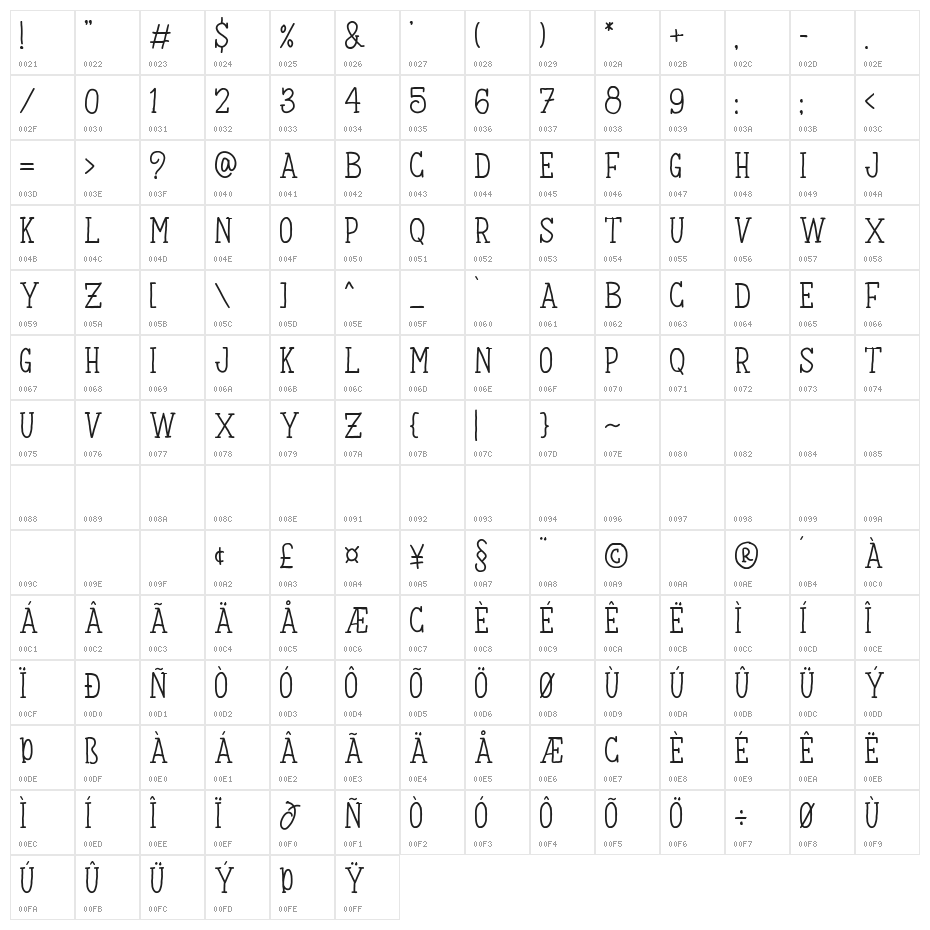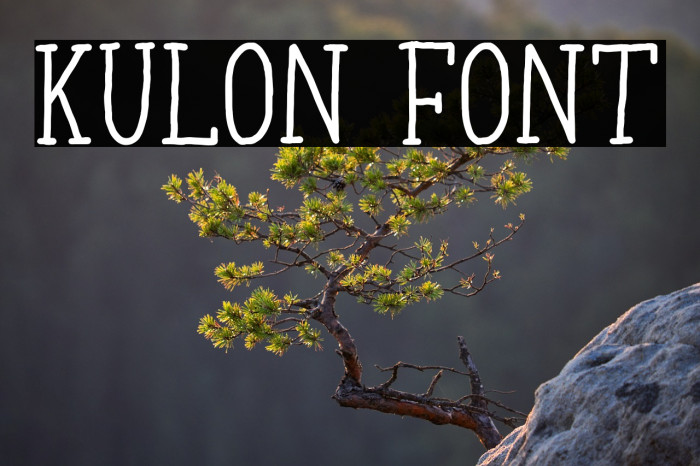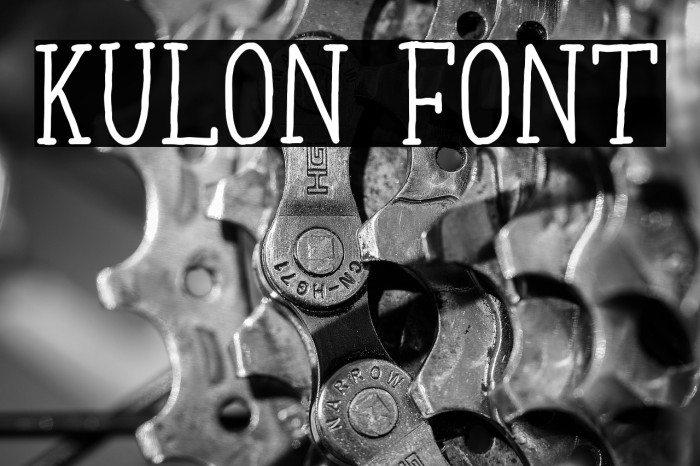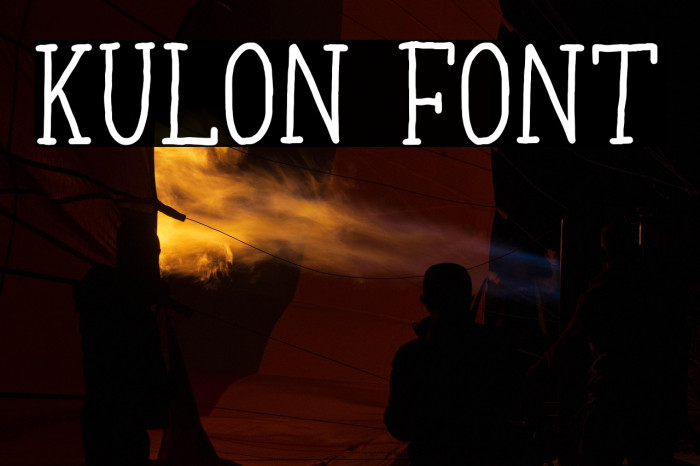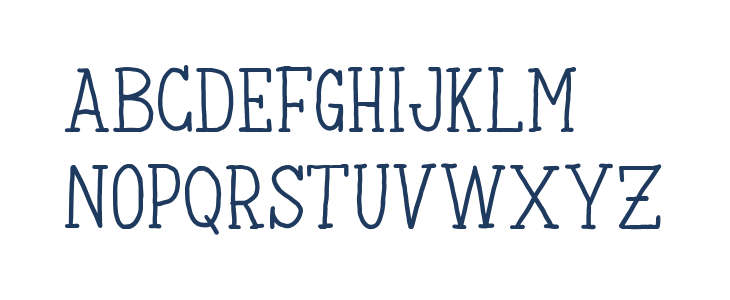
Kulon Font
Kulon Description
This font features a playful and slightly irregular design, giving it a hand-drawn appearance. The characters are tall and narrow, with subtle variations in line thickness that add a whimsical touch. The uppercase letters are bold and prominent, while the lowercase letters maintain a consistent style with a slightly more condensed form. Numbers are clear and easy to read, matching the overall aesthetic. Special characters are creatively integrated, maintaining the font's unique style. This font is perfect for projects that require a personal and informal touch, such as children's books, creative posters, or branding for artisanal products.
| Proposed Projects | Ideal for children's books, creative posters, artisanal branding, and informal invitations. |